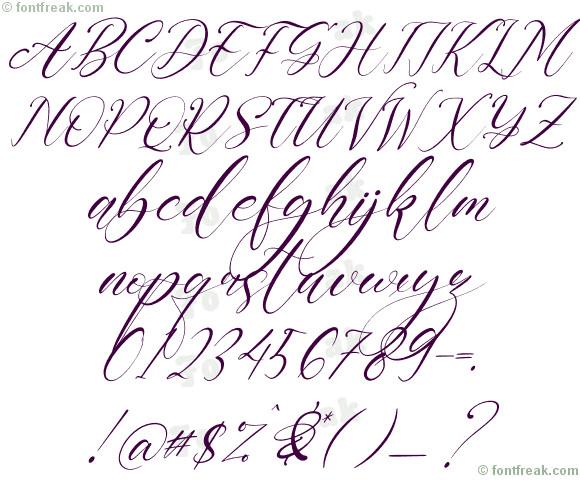
Kalindaty Alintaria Italic
Kalindaty Alintaria Italic by Perspectype Studio is an elegant script font that beautifully blends sophistication with a touch of whimsy. This font features a graceful, flowing design characterized by its slender stroke weight and moderate contrast. The letters exhibit a charming fluidity, which is enhanced by the gentle curves and loops that sweep across the characters. The spacing is thoughtfully designed to ensure readability while maintaining an artistic flair, making it suitable for a variety of creative applications.
This font shines in several specific use cases. It is ideal for wedding invitations, where its romantic aesthetic can add a personal touch to the celebration. Additionally, Kalindaty Alintaria Italic works wonderfully for upscale restaurant menus, offering an air of elegance that complements gourmet dining experiences. Its distinctive style also makes it a great choice for branding materials, such as logos and packaging, where a unique identity is essential. Content creators looking to elevate their social media graphics will find that this font adds a sophisticated edge to any visual presentation.
Targeting graphic designers, small business owners, and content creators, Kalindaty Alintaria Italic is a versatile choice that caters to those seeking a refined appearance in their projects. The freeware license allows for widespread use, making it accessible for various applications without the burden of licensing fees.
What sets the Kalindaty Alintaria Italic font apart is its balance of elegance and versatility. This font can effortlessly elevate any design, making it a staple for creatives who wish to leave a lasting impression. For those interested in incorporating its unique style into their work, the Kalindaty Alintaria Italic font free download is readily available, inviting you to explore its potential in your next project.